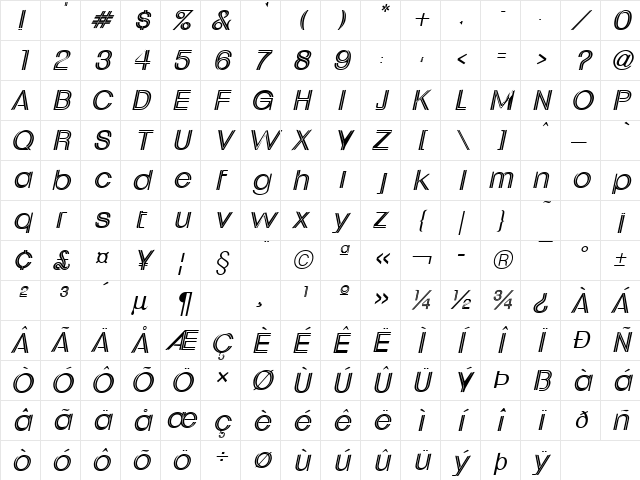
Downtown Italic
Downtown Family
Design Context for Downtown
Downtown is a composed and adaptable typeface that performs quietly and consistently across a wide range of design contexts. The slanted form adds forward momentum and visual energy.
Pro Tip: Use Downtown for emphasis, pull quotes, and subheadings where its slanted energy can add rhythm to the layout.